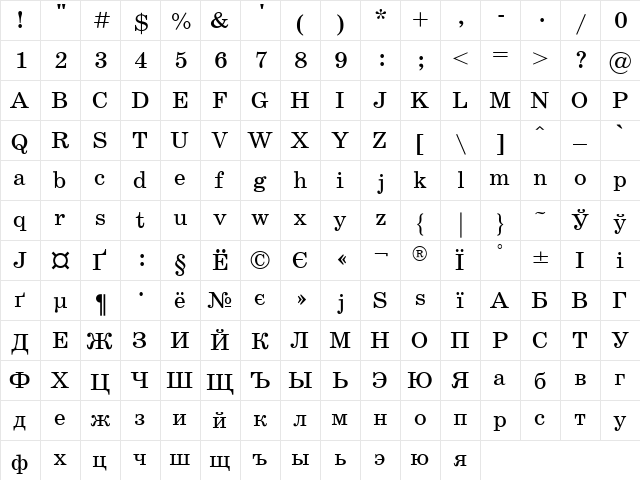
UkrainianSchoolBook Regular
Design Context for UkrainianSchoolBook Typeface
UkrainianSchoolBook offers clean, dependable letterforms without strong stylistic allegiance, making it a practical choice for designers who need flexibility.